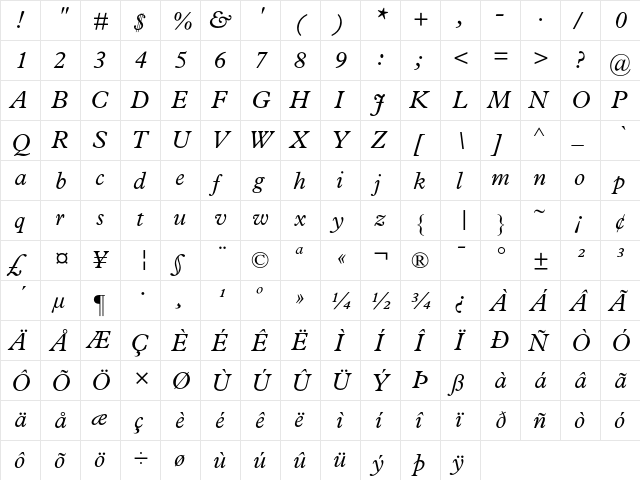
Plantin Italic Font Preview
Plantin Italic
Plantin Italic Font Details
Design Context for Plantin Typeface
Plantin takes a measured approach to typography — its balanced proportions and neutral character make it a reliable workhorse for both digital and print work. The slanted form adds forward momentum and visual energy.